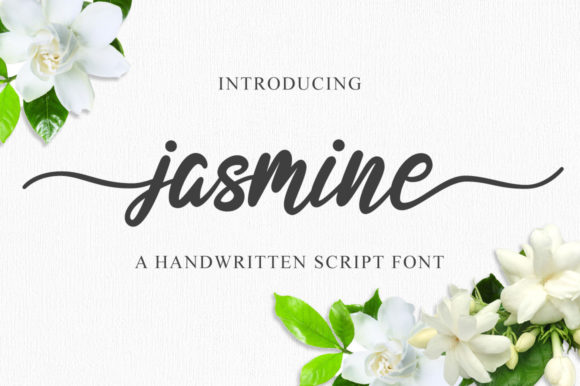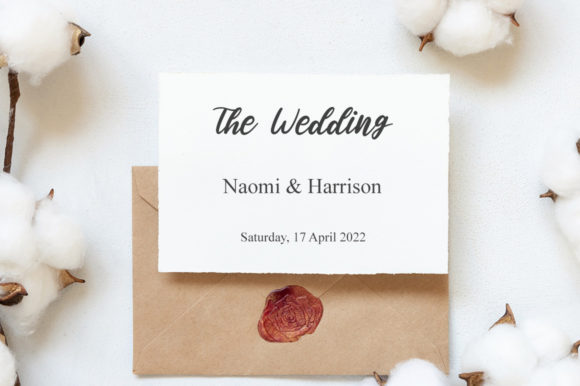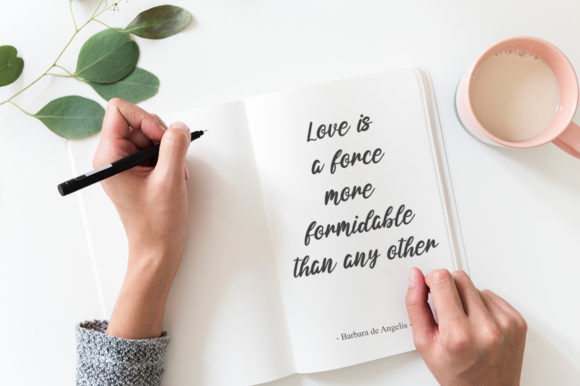
About Jasmine Font
Jasmine is a delicate, refined script font that emanates sophistication and elegance. Its stylish alternates and ligatures make this font the perfect match for any project.